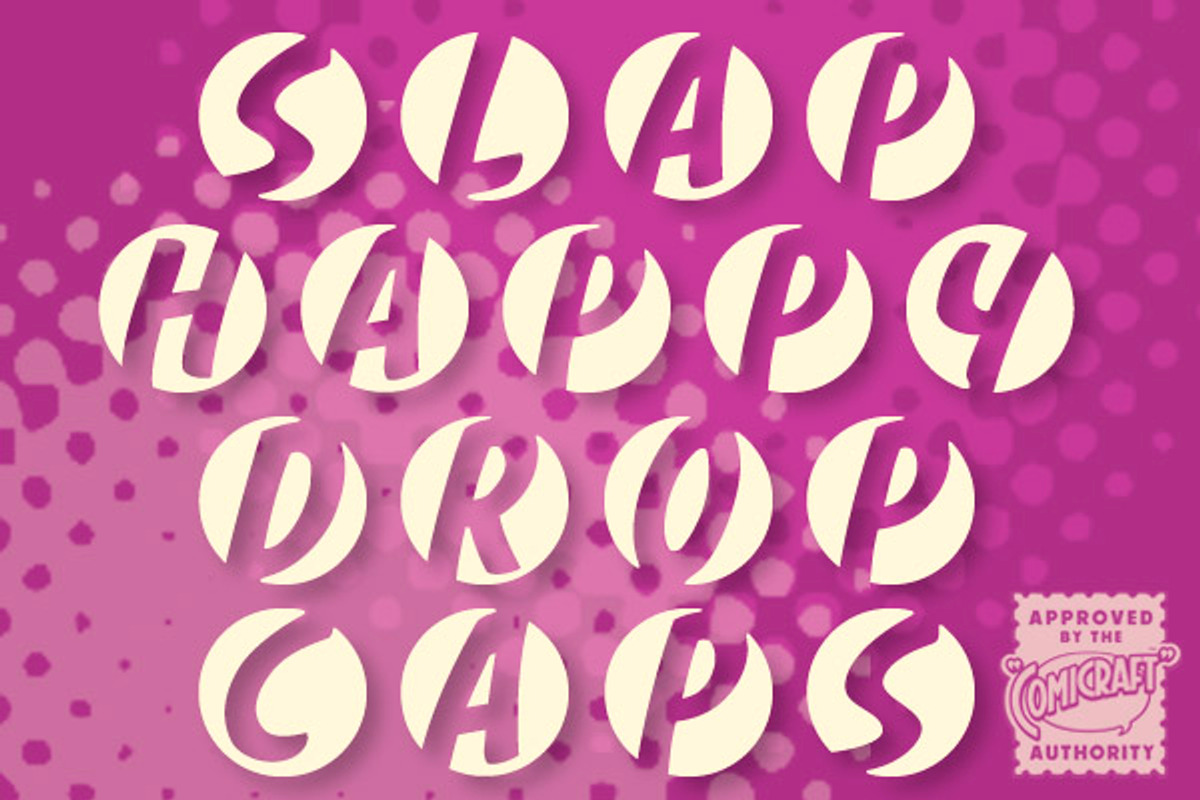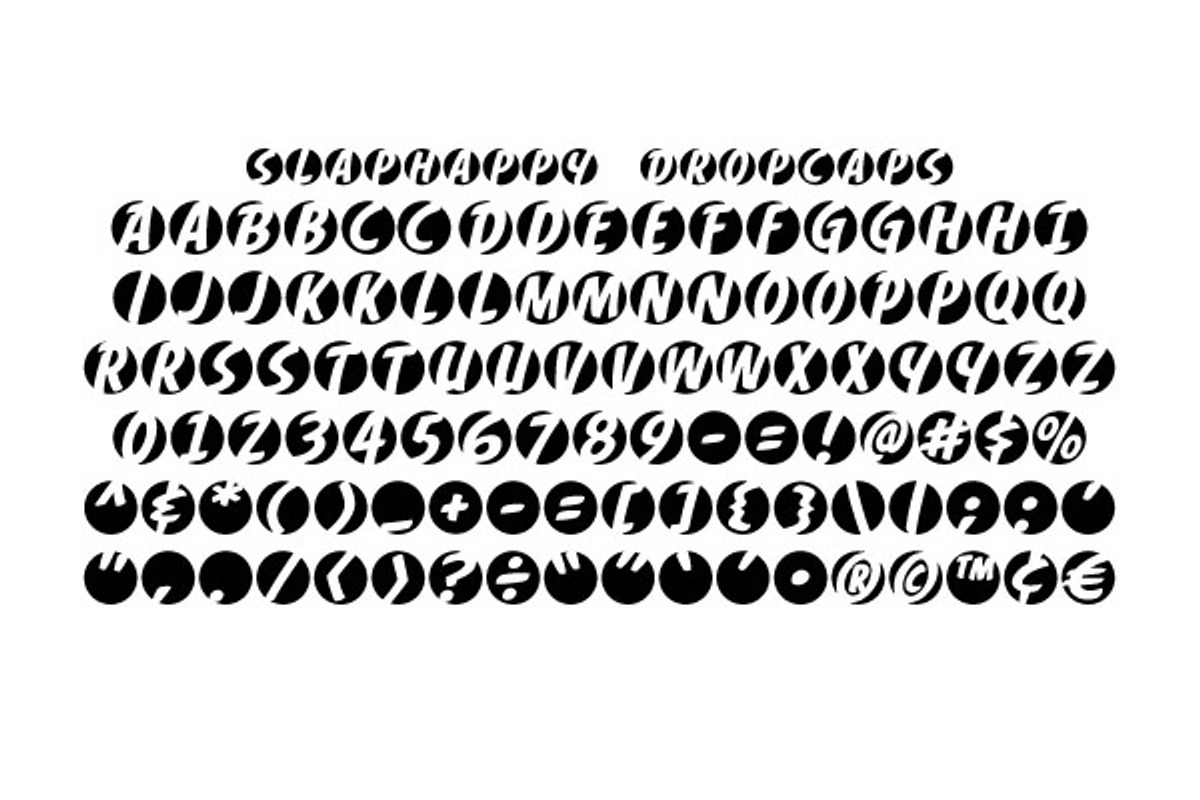
Slaphappy Dropcaps
Slaphappy Dropcaps by Comicraft Fonts is a font selected for branding, posters, packaging, typography.
- Are you talking incoherently as if you've received repeated blows to the head?
Why Slaphappy Dropcaps is worth a look
Slaphappy Dropcaps by Comicraft Fonts fits naturally into Branding, posters, packaging, typography.